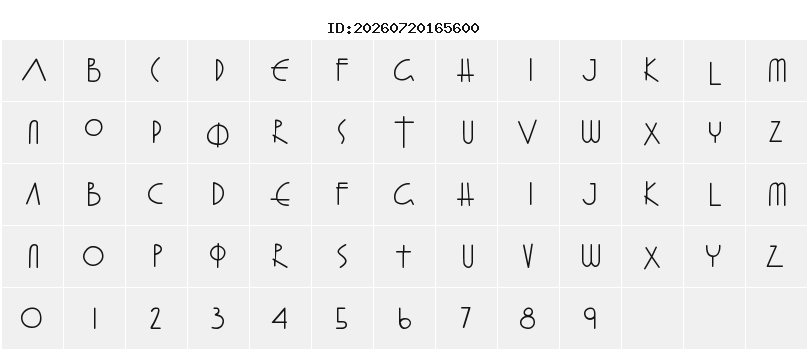
• Font Name: Fray Gabriel
• Designer: Fray Gabriel Chávez
• Manufacturer: Ingenyar S.A. de C.V.
About Fray Gabriel.ttf
Fray Gabriel.ttf is a modern, elegant sans-serif font designed for ultimate readability and visual harmony. Perfect for branding, headlines, web design, and print materials.